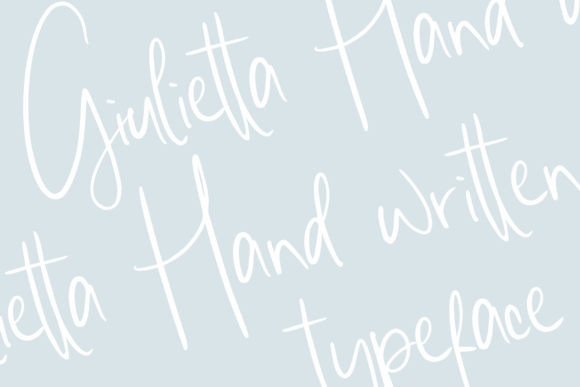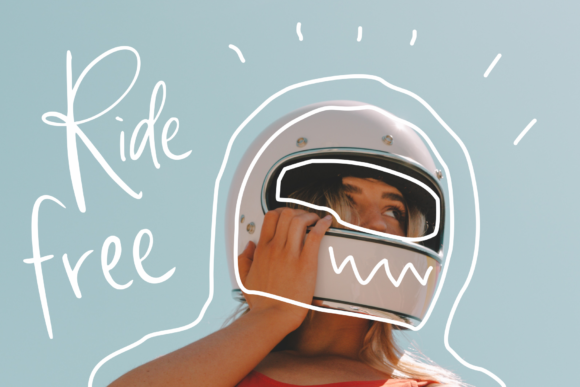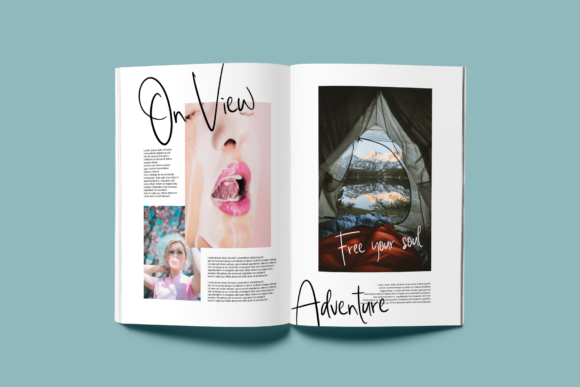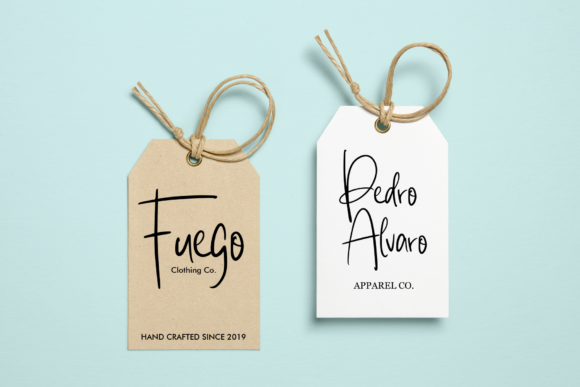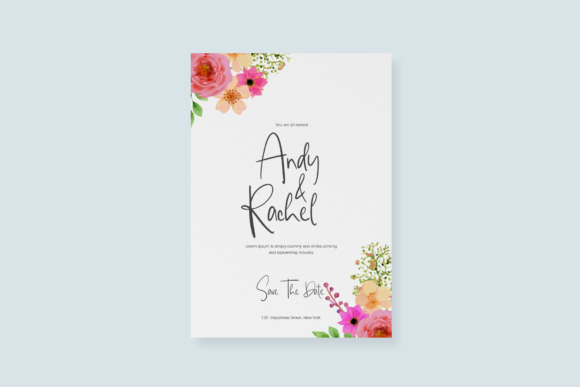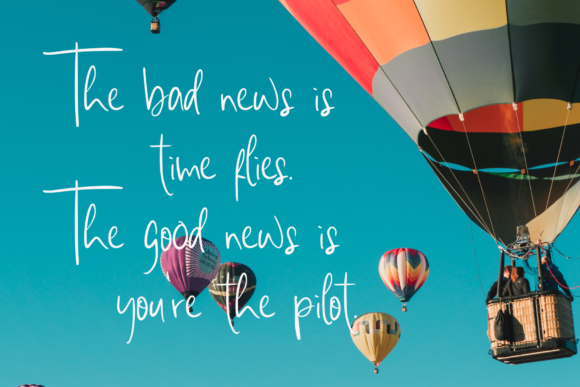
Discover the Elegance of Giulietta Font: A Unique Script for Designers and Crafters
In the world of typography, few fonts manage to capture the essence of elegance and originality as effectively as the Giulietta font. This stunning script font combines generous curves and smooth letters to create a truly unique and captivating typeface. Designed to add a touch of sophistication and personality to any design project, Giulietta is rapidly becoming a favorite among designers and crafters alike.
The Origins of Giulietta
The Giulietta font boasts a distinctive character that sets it apart from more traditional typefaces. Its origins are rooted in the desire to create a script that embodies both fluidity and elegance, making it perfect for a wide range of applications, from wedding invitations and branding to packaging and digital media.
Key Features of Giulietta Font
- Generous Curves: Giulietta’s design is characterized by its generous curves, which give it a soft, approachable feel. These curves contribute to the font’s elegance and make it highly readable, even at smaller sizes.
- Smooth Letters: The smooth integration of letters in Giulietta creates a seamless flow, making it ideal for body text and headlines alike. This smoothness ensures that the font looks refined and polished, regardless of its application.
- Unique Character: What truly sets Giulietta apart is its unique character. The font strikes a perfect balance between modernity and classic script elements, making it versatile and highly adaptable.
Applications of Giulietta Font
The versatility of Giulietta makes it suitable for a myriad of design projects. Here are a few ideas where Giulietta can truly shine:
- Wedding and Event Stationery: The elegant and sophisticated nature of Giulietta makes it perfect for wedding invitations, save-the-date cards, and other event-related materials.
- Branding and Logo Design: For businesses looking to establish a brand identity that exudes elegance and refinement, Giulietta can be a fantastic choice. Its unique character can help a brand stand out in a crowded marketplace.
- Digital Media: In the digital realm, Giulietta can be used for website headers, social media graphics, and even digital advertising. Its readability and aesthetic appeal make it well-suited for screen use.
- Packaging: For products that require a touch of luxury and sophistication, Giulietta can be used on packaging to elevate the brand’s image and appeal.
Tips for Using Giulietta Font Effectively
To make the most of Giulietta, consider the following tips:
- Pair with Complementary Fonts: Giulietta pairs well with clean sans-serif fonts for body text or contrasting serif fonts for headlines, creating a visually appealing hierarchy.
- Adjust Letter Spacing: For optimal readability, especially in longer texts, adjust the letter spacing to ensure that the generous curves of Giulietta have enough room to breathe.
- Consider Size and Weight: Experiment with different sizes and weights of Giulietta to create visual interest and emphasis in your design.
Giulietta font, with its unique blend of generous curves and smooth letters, offers designers and crafters a powerful tool for creating visually stunning and memorable designs. Whether you’re working on a wedding invitation, a brand identity project, or digital media, Giulietta provides the elegance and originality needed to make your work stand out. By incorporating Giulietta into your typography arsenal, you can add a touch of sophistication and personality to your designs, elevating them to new heights of creativity and impact.
Explore the possibilities of Giulietta today and discover how this truly original script can transform your design projects into masterpieces of elegance and style.